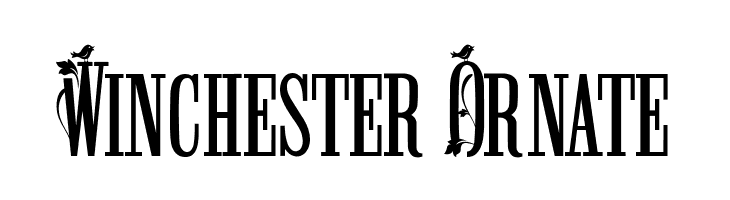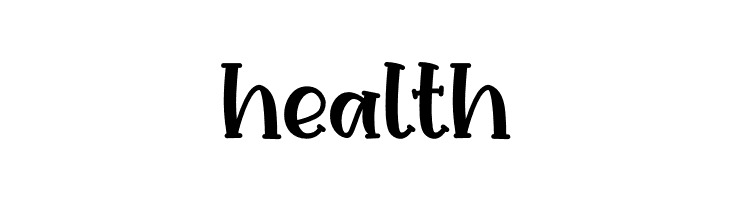
An ornate and decorative font with intricate flourishes and vintage elegance.
A bold, high-contrast serif font with tall, narrow letterforms and pronounced serifs.
A bold, decorative font with spiky serifs and intricate details.
A bold, stencil-style font with diagonal hatching for a modern, industrial look.
A thin, decorative font with elegant curves and modern flair.
A playful, hand-drawn font with rounded, whimsical characters.
A collection of decorative flourishes and motifs for embellishment.
Intricate and decorative flourishes with vintage calligraphic style.
A clean, modern sans-serif typeface with balanced proportions and consistent stroke width.
A graceful and elegant script font with flowing, cursive letterforms.